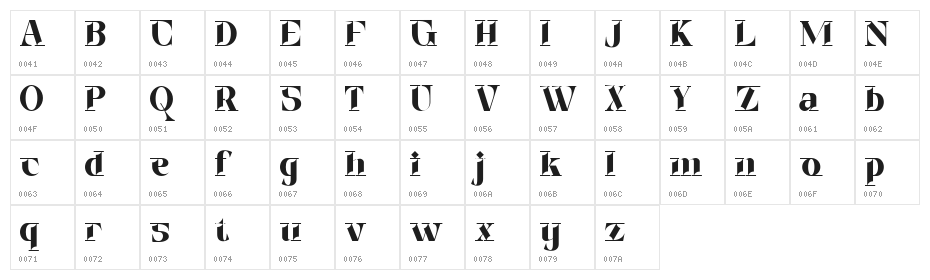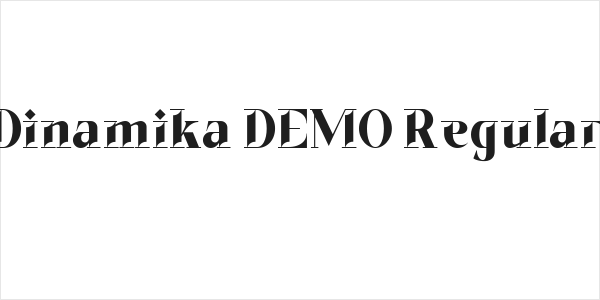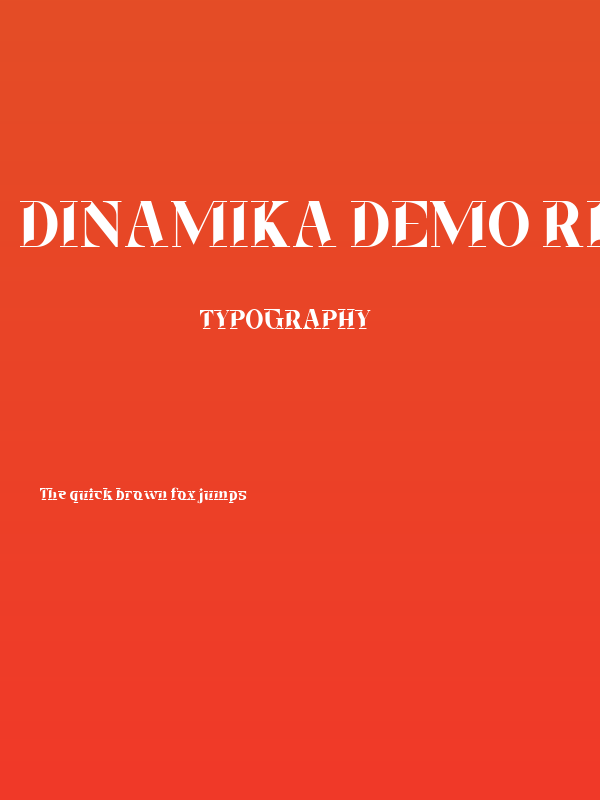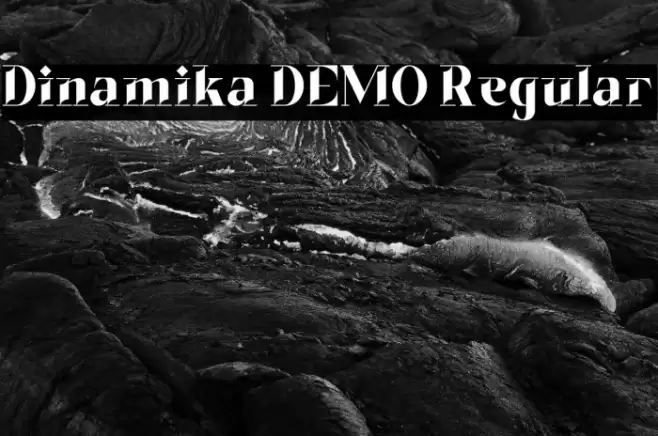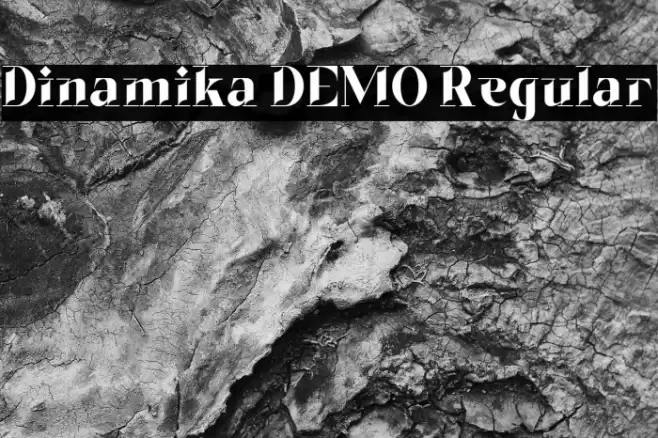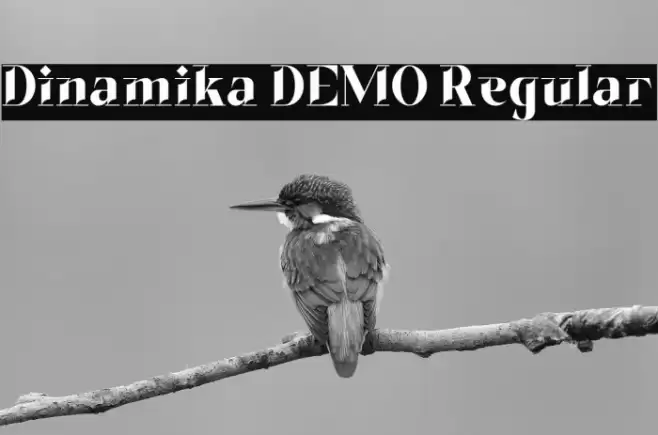
Dinamika DEMO Regular Font
Dinamika DEMO Regular Description
A decorative serif font with high contrast and stylized elements, featuring sharp, angular serifs and a vintage aesthetic.
Dinamika DEMO